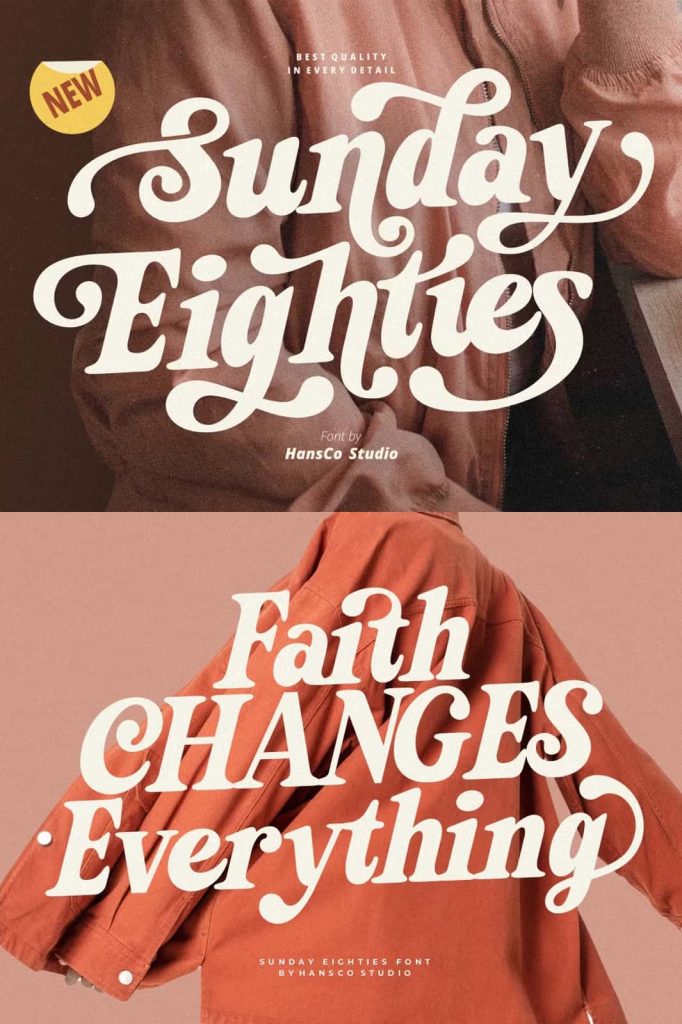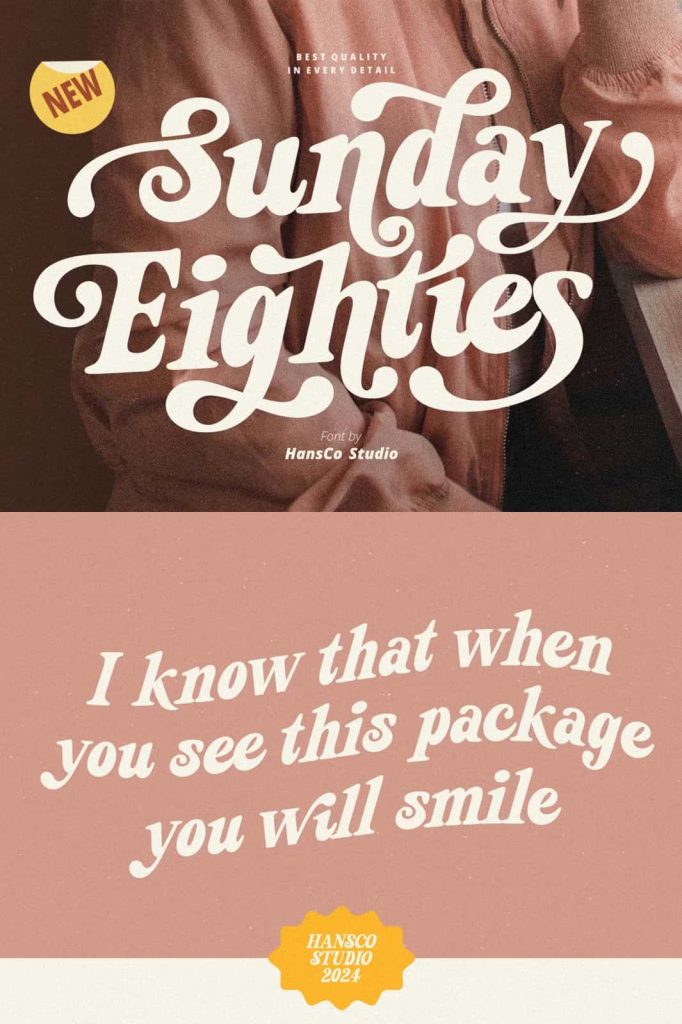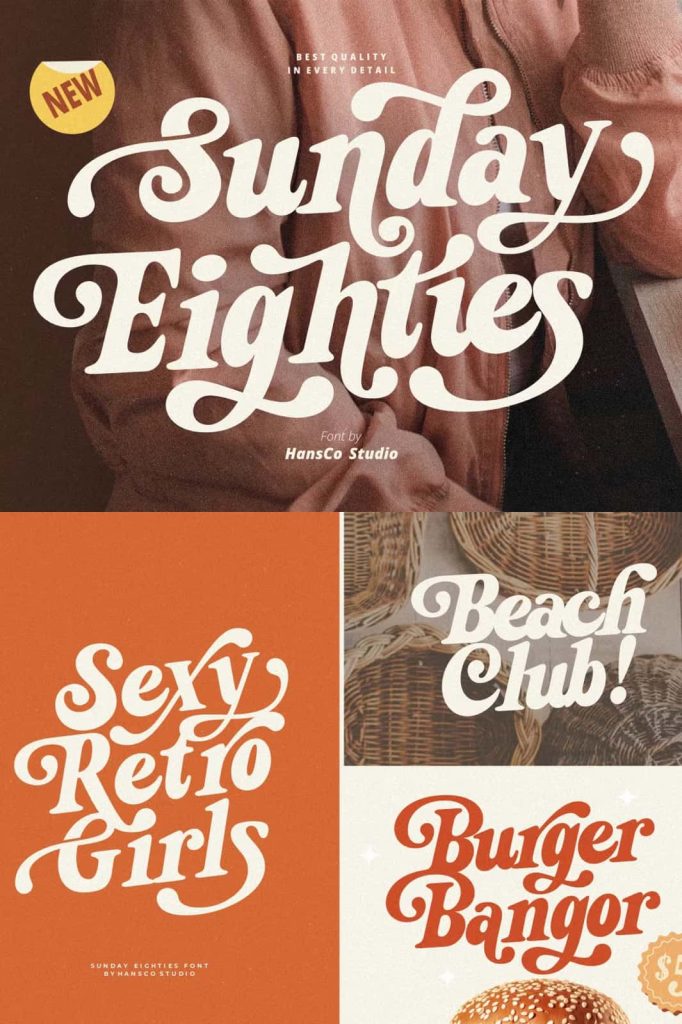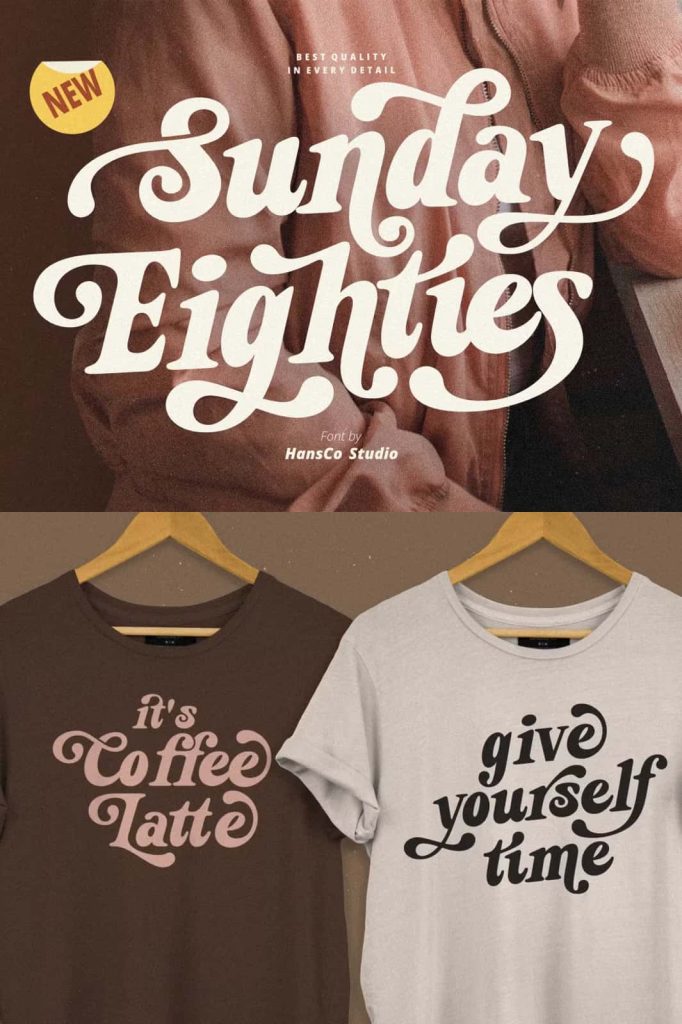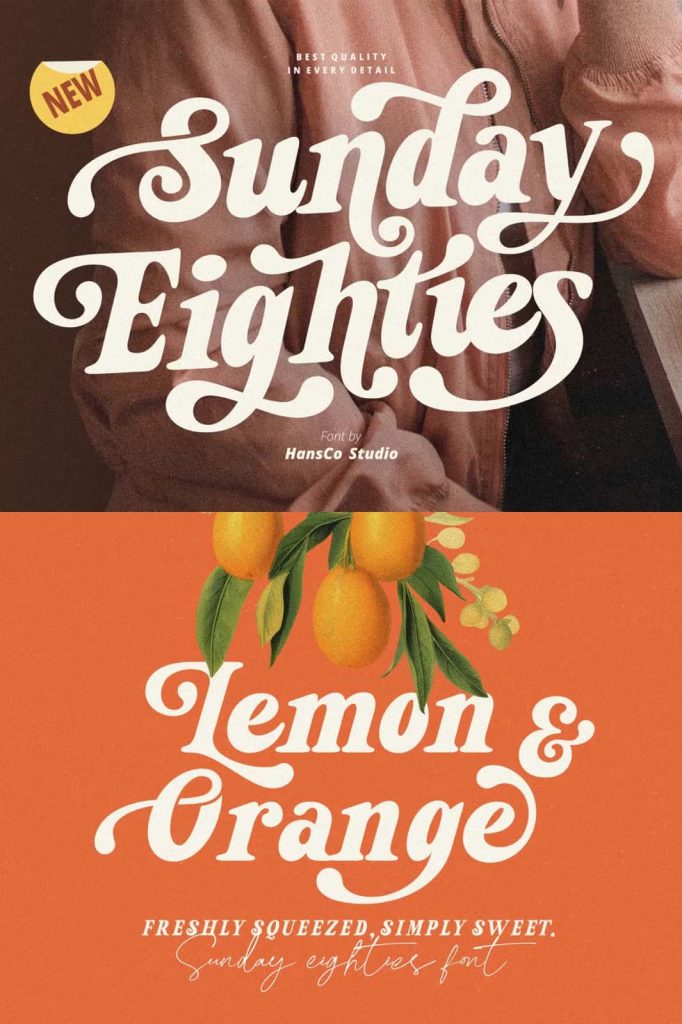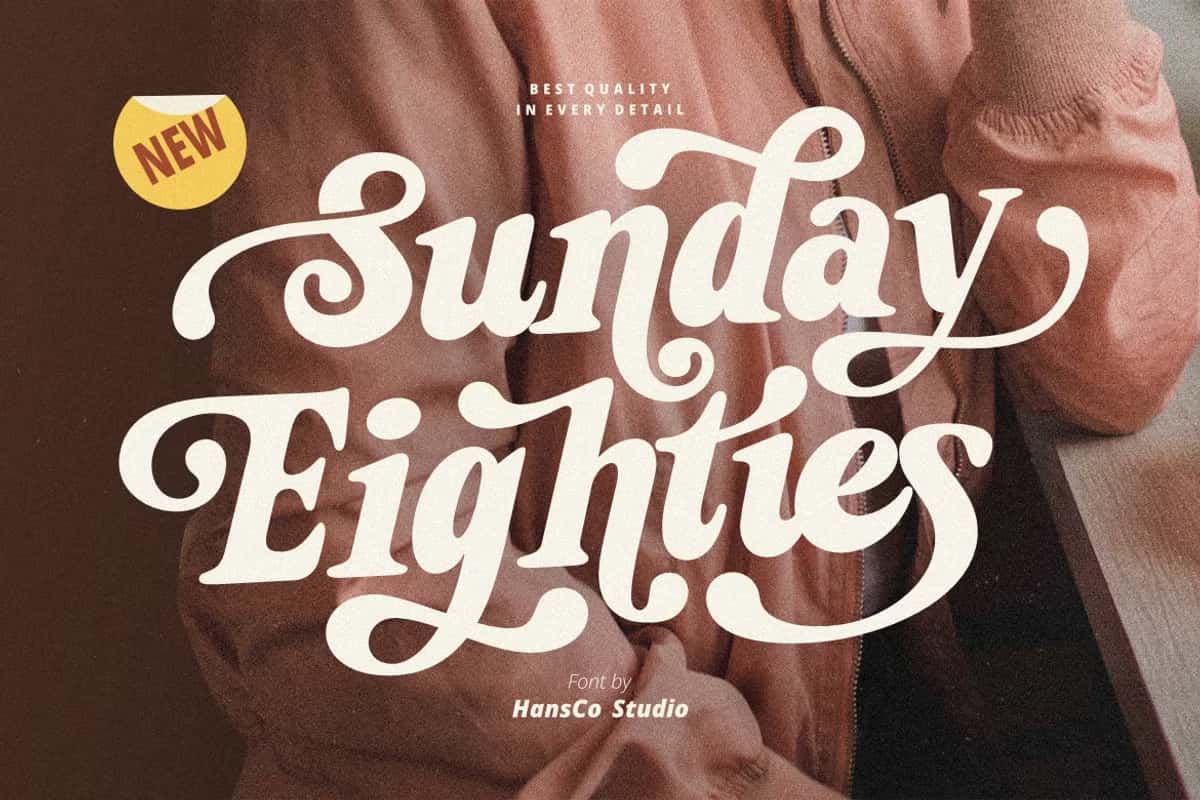
Sunday Eighties Font is a simple & bold retro vintage serif font style. You will also get additional alternative swash character fonts that make your design projects amazing.